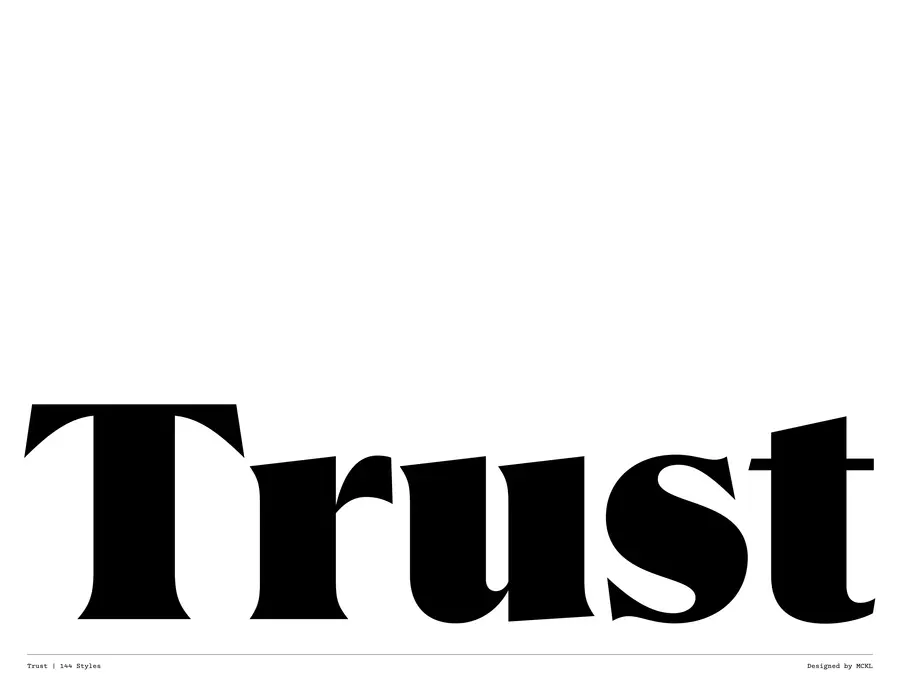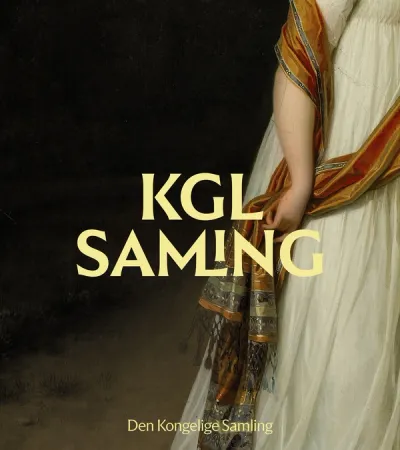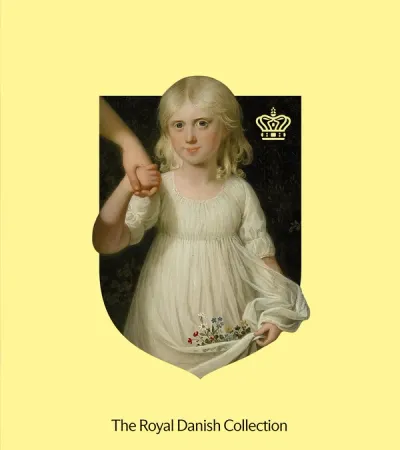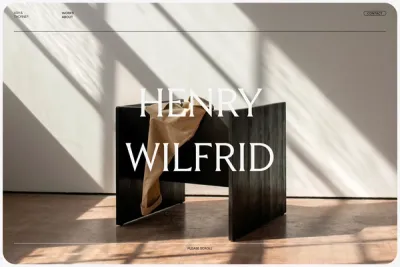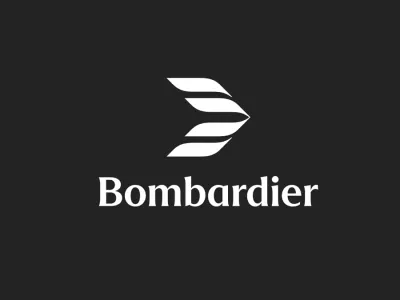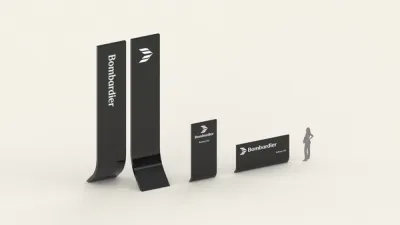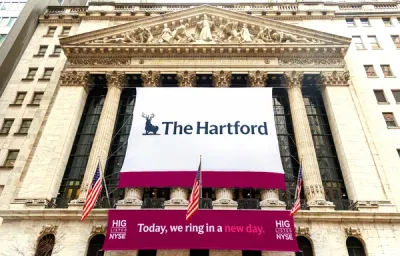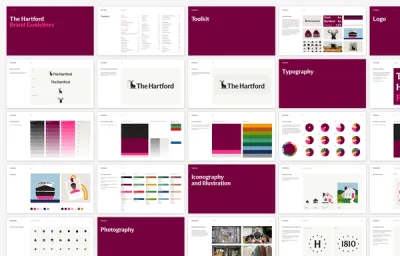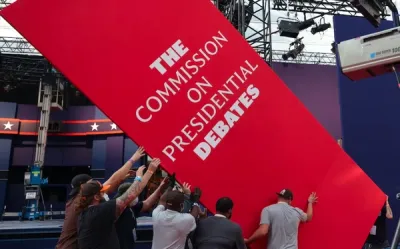
Trust
- 144 styles 9 subfamilies, 8 weights each Roman and Italic
- Designed by Jeremy Mickel Published in 2023
- With assistance by Graham Bradley, Douglas Hayes, and Sabina Chipară
Trust is a collection of display typefaces comprising 144 styles across 9 families. The fonts are organized along a continuum of sans to serif, low to high contrast, and light to black weights, in roman and italic styles.
Trust functions as a survey of 20th century typography through a largely American filter of 1960s and 70s phototype. The original inspiration comes from US coin designs, and is also influenced by a multitude of typefaces from the pre-digital era. In different corners of its design space, Trust evokes classics including Friz Quadrata, Albertus, Serif Gothic, Kabel, Tempo, and Optima, and can even conjure Broadway or ITC Americana in the extreme styles. The unifying motif of Trust is the sharp diagonal shape of characters like AMNVWvw, an element which comes from the reference coins, displayed on the reverse side in “UNITED STATES OF AMERICA.”
The Trust Collection is highly flexible, with many alternates to further refine the voice of the fonts, including conventional flat forms for the diagonal AMNVWvw shapes, decorative numbers, and schoolbook agy alternates, among others. With a wide range of stylistic options to choose from, Trust can be used as a display typeface for many different kinds of editorial, branding, and other graphic design applications.